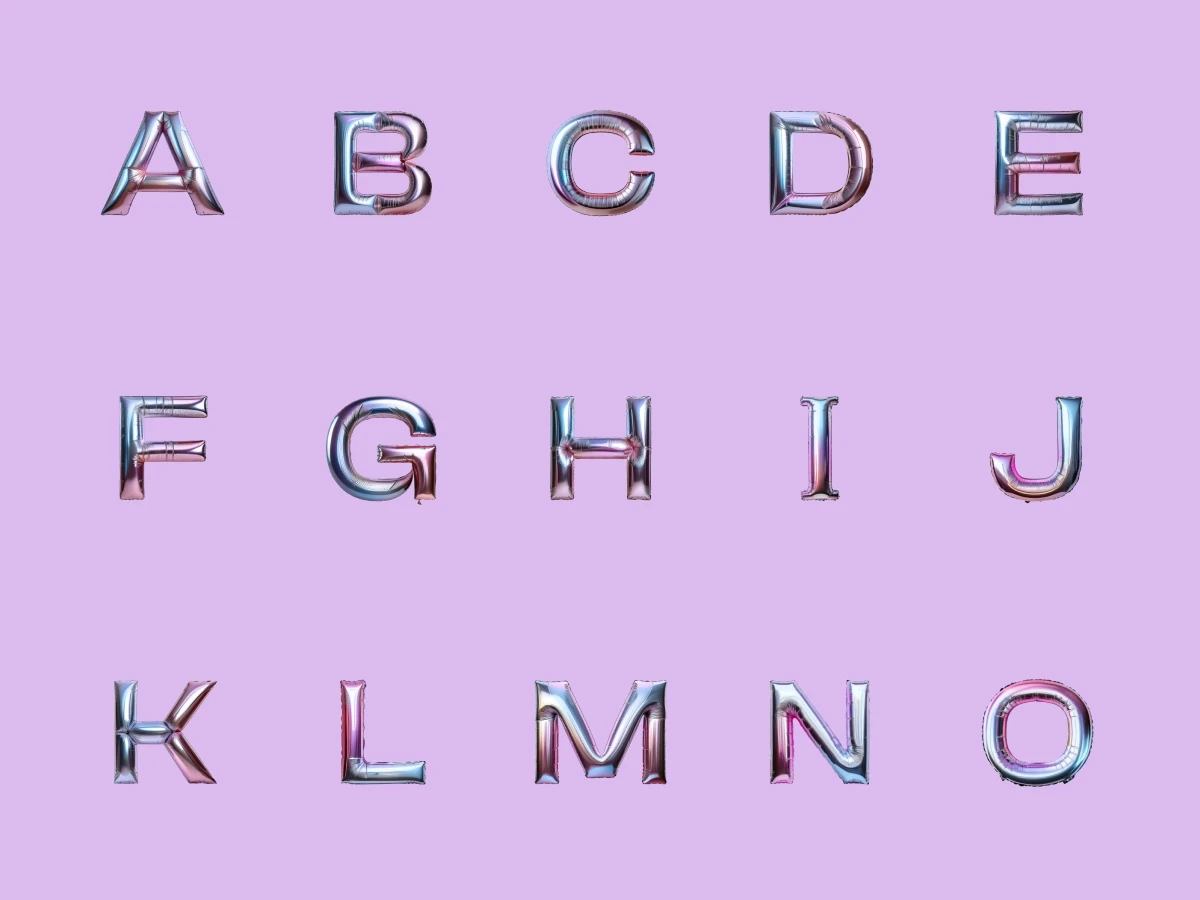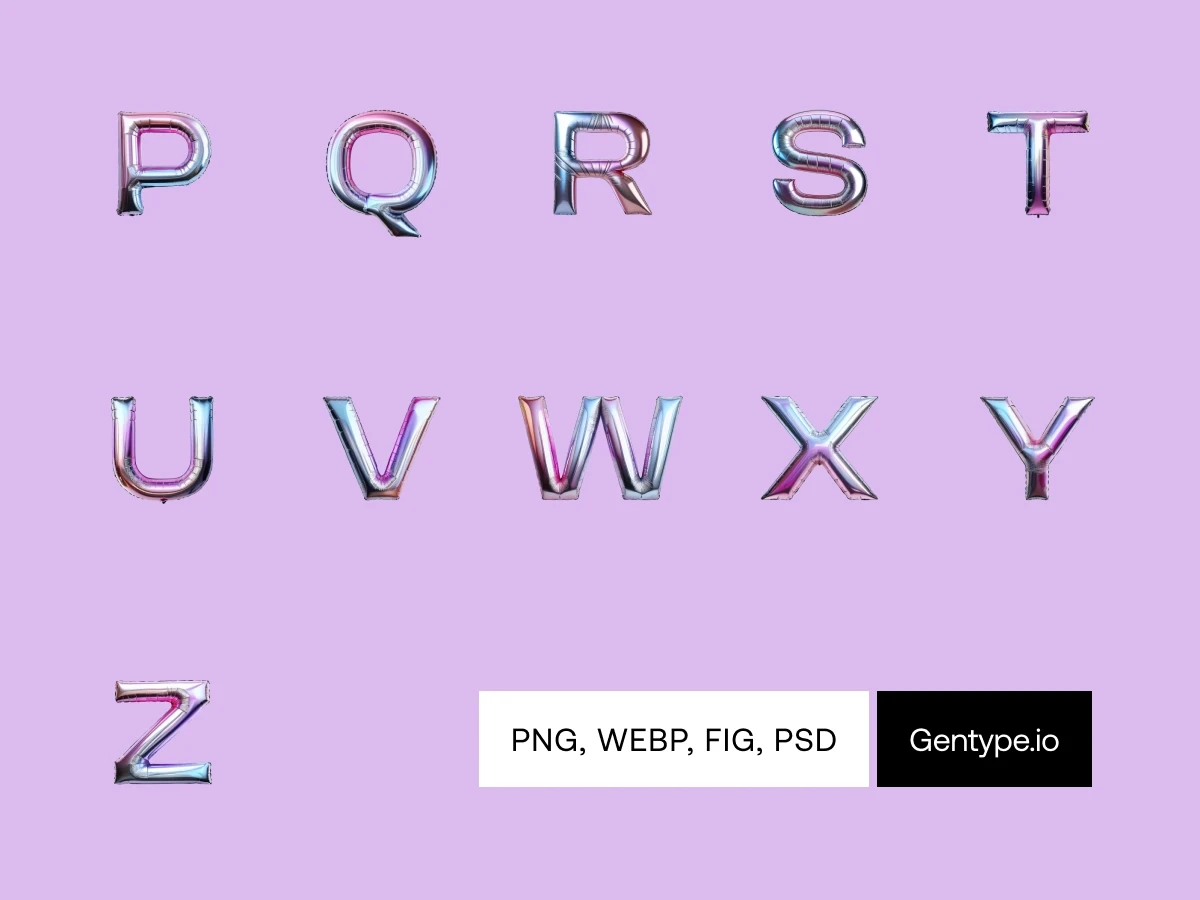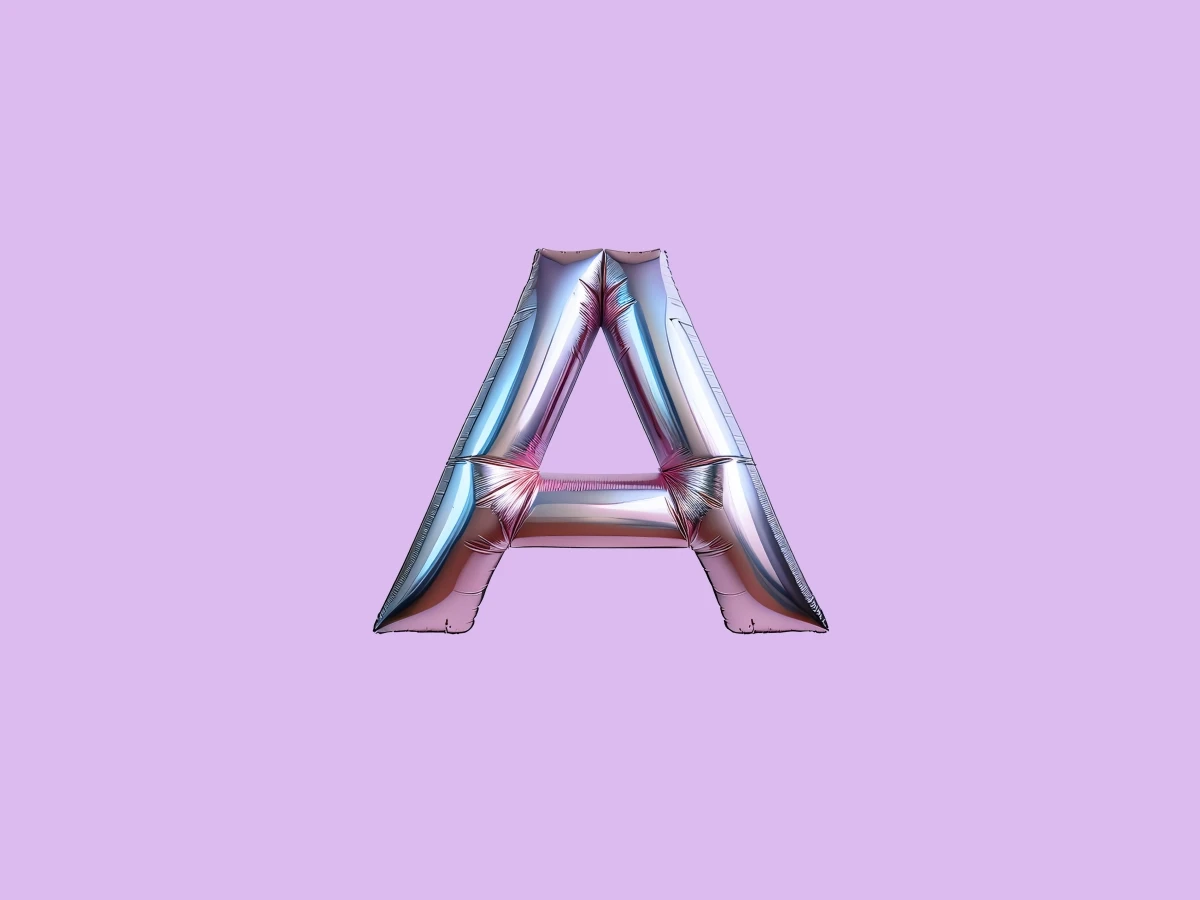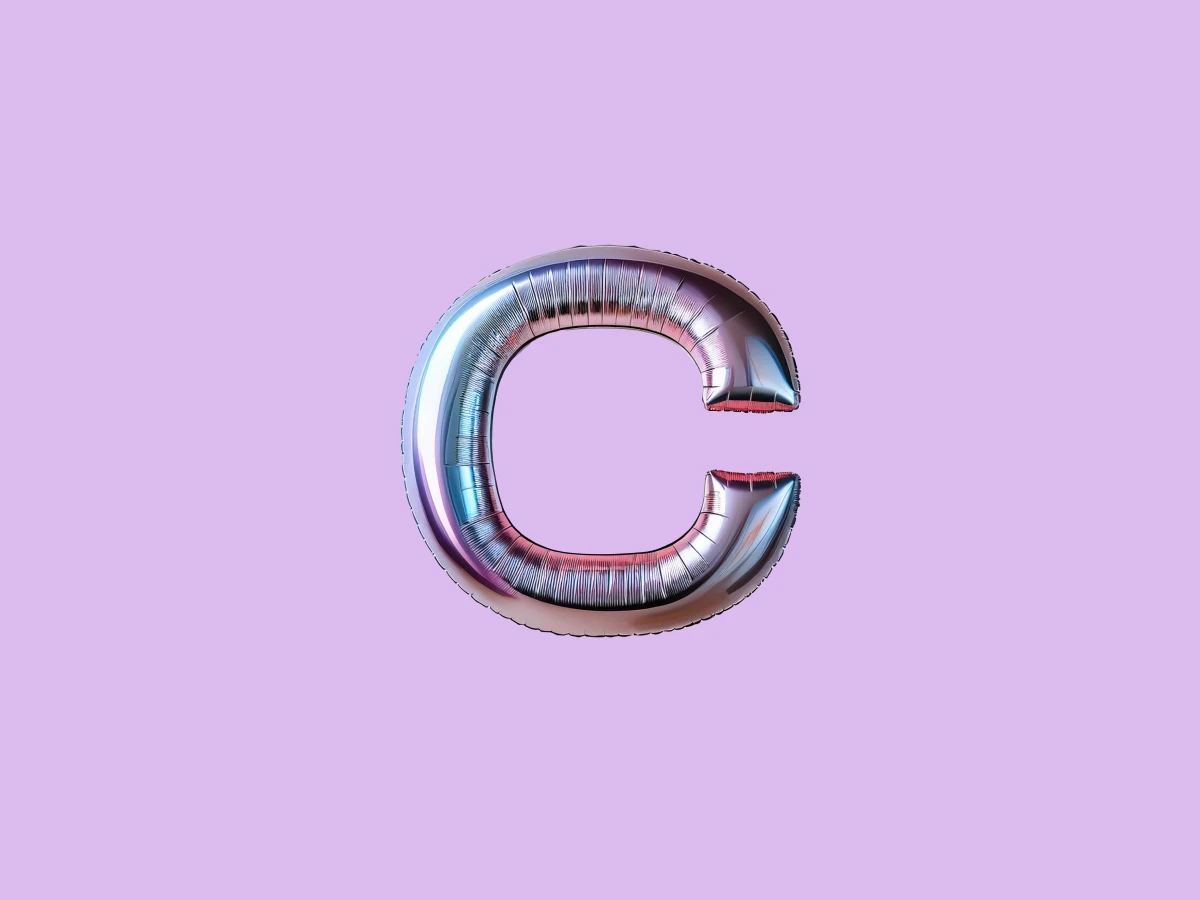
Shine bright with this sleek, metallic letter set, designed to give your projects a polished, modern edge. Each letter has a soft, creased texture, adding depth and a touch of industrial style to your designs. Perfect for making your work stand out with a striking, contemporary vibe.